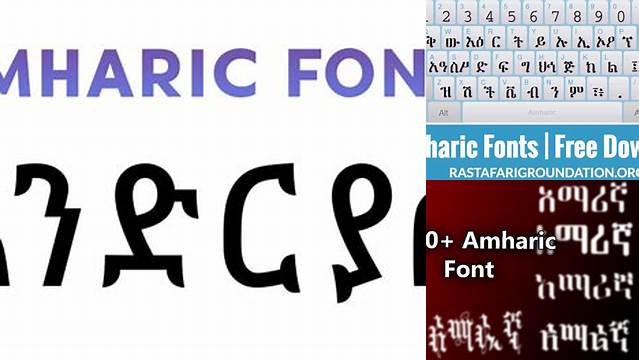
H2: Understanding the Amharic Script and Its Importance
Guys, before we jump into the all Amharic fonts free download bonanza, let's take a quick detour to appreciate the beauty and significance of the Amharic script. Amharic, also known as Amarigna, is a Semitic language spoken primarily in Ethiopia. It's not just a language; it's a cultural cornerstone. It is the official working language of the Federal Democratic Republic of Ethiopia. The Amharic script, called Fidel or Abugida, is a unique writing system that's a sight to behold. It's derived from the Ge'ez script and is characterized by its distinctive characters, each representing a consonant-vowel syllable.
Understanding the Amharic script is the first step to using Amharic fonts effectively. Each character holds a story and its own pronunciation. The script is not just a means of communication; it's a powerful emblem of Ethiopian heritage and national identity. Using the correct Amharic fonts ensures the preservation of this cultural legacy and provides accurate representation of your text. Imagine, using a font that distorts the shape or doesn't properly represent the Fidel; it is not just an aesthetic issue, but a betrayal of the culture and language. That's why finding the right all Amharic fonts free download becomes crucial for anyone involved in Amharic communication. The script’s complexity and beauty requires careful attention to detail when selecting fonts for documents, websites, or any other project involving Amharic text.
Think about it: from official documents to creative designs, Amharic fonts are the bridge that allows Amharic speakers and readers to connect with the information. Without the appropriate fonts, reading and writing in Amharic becomes a struggle. The correct font makes everything easily accessible and provides a visual experience that's true to the Amharic linguistic and cultural roots. It’s about respecting and celebrating the language. It's about preserving the richness of the Amharic language and its visual presentation. So, whether you are designing a website, creating educational materials, or composing a personal letter, choosing the right fonts is more important than you may realize. By choosing the right all Amharic fonts free download, you are making sure that the language and culture are properly and beautifully represented.
H2: Understanding Font Licensing and Usage Rights
Alright, let's talk about something that's super important, but often overlooked: font licensing and usage rights. When you're hunting down those all Amharic fonts free download, you need to understand the fine print. Not all free fonts are created equal, and the licensing can vary a lot. The license of the font determines how you're allowed to use it. Some fonts are licensed under the Open Font License (OFL). This license lets you use, modify, and redistribute the font for both commercial and personal use. This is ideal for most projects. But, there are also other types of licenses, such as the Creative Commons licenses.
Some fonts are free only for personal use, meaning you can use them for non-commercial projects, like creating documents for yourself or your family. If you want to use the font for a commercial project, like a website, a logo, or marketing materials, you may need to purchase a commercial license. Before you start using any font, always read the license agreement carefully. The license agreement will tell you exactly what you can and cannot do with the font. Make sure you understand how you can use the font, where you can use it, and if there are any restrictions.
Pay attention to the details. Some licenses might restrict how you can modify the font or how many times you can use it. Ignoring the licensing terms can lead to legal issues, so it's always better to be safe than sorry. You can usually find the license information on the font download page or in a text file that comes with the font. If you're unsure about the license, don't hesitate to contact the font designer or the website where you downloaded the font. Making sure you understand the license of the all Amharic fonts free download is a critical step for using the fonts correctly.
H2: The Best Free Amharic Fonts to Download
Now, for the good stuff! Let's dive into some of the best all Amharic fonts free download options available. I'm going to give you a few recommendations to get you started. First up, we have the